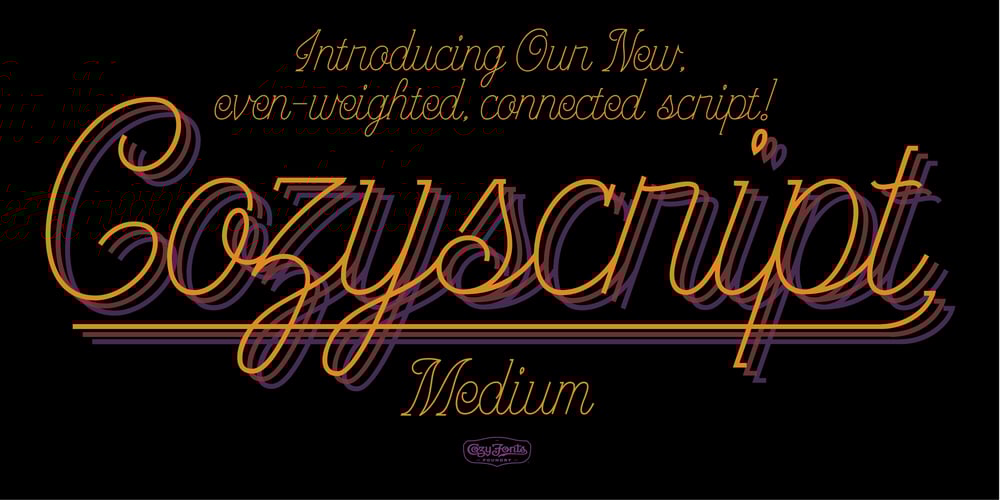
CF Cozyscript Font Family was designed by Tom Nikosey and published by CozyFonts. CF Cozyscript contains 3 styles and family package options. CF Cozyscript is an even weighted connecting script. Created in the spirit of the Old Grade School cursive chart seen above the blackboard in the front of the classroom. Giving students a constant visual reference of the smooth flow of Caps and Lower case script. Neither formal nor casual but a combination of both styles. Cozyscript is currently available in 3 styles: Light, Medium & Rounded.The Light & Medium styles are best suited for Invitations, Notes, Advertising, Personal Letters, and Sensitive Subjects such asMovie Titles, Biographies, Wedding paraphernalia, etc. The Light & Medium Glyphs finish in squared-off ends, whereas the Rounded version is slightly bolder than the Medium version with rounded ends resembling a tubular look. The Rounded version lends itself to effective use in Sports, Music, and Advertising, Graphics, Signage, Branding, Neon effects, Logos, Titles, and Packaging. With over 300 glyphs applicable in over 100 languages, Cozyscript is available for use!Cozyscript is CozyFonts Foundry’s 17th Font Family released and 2nd script font by Tom (Cozy) Nikosey, California Designer.